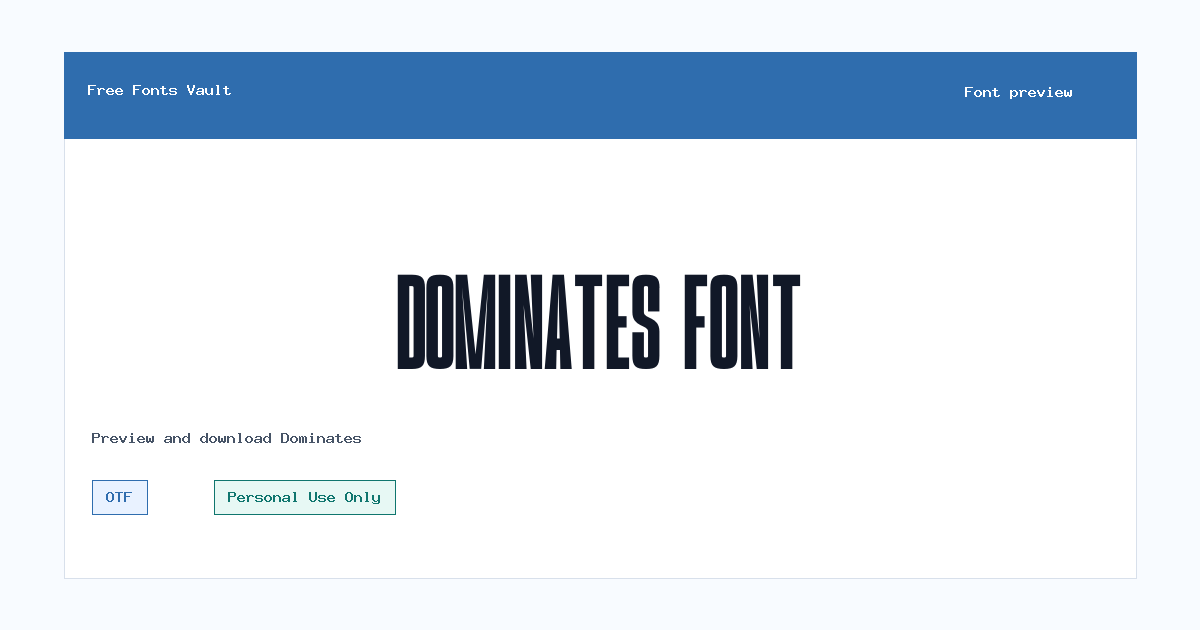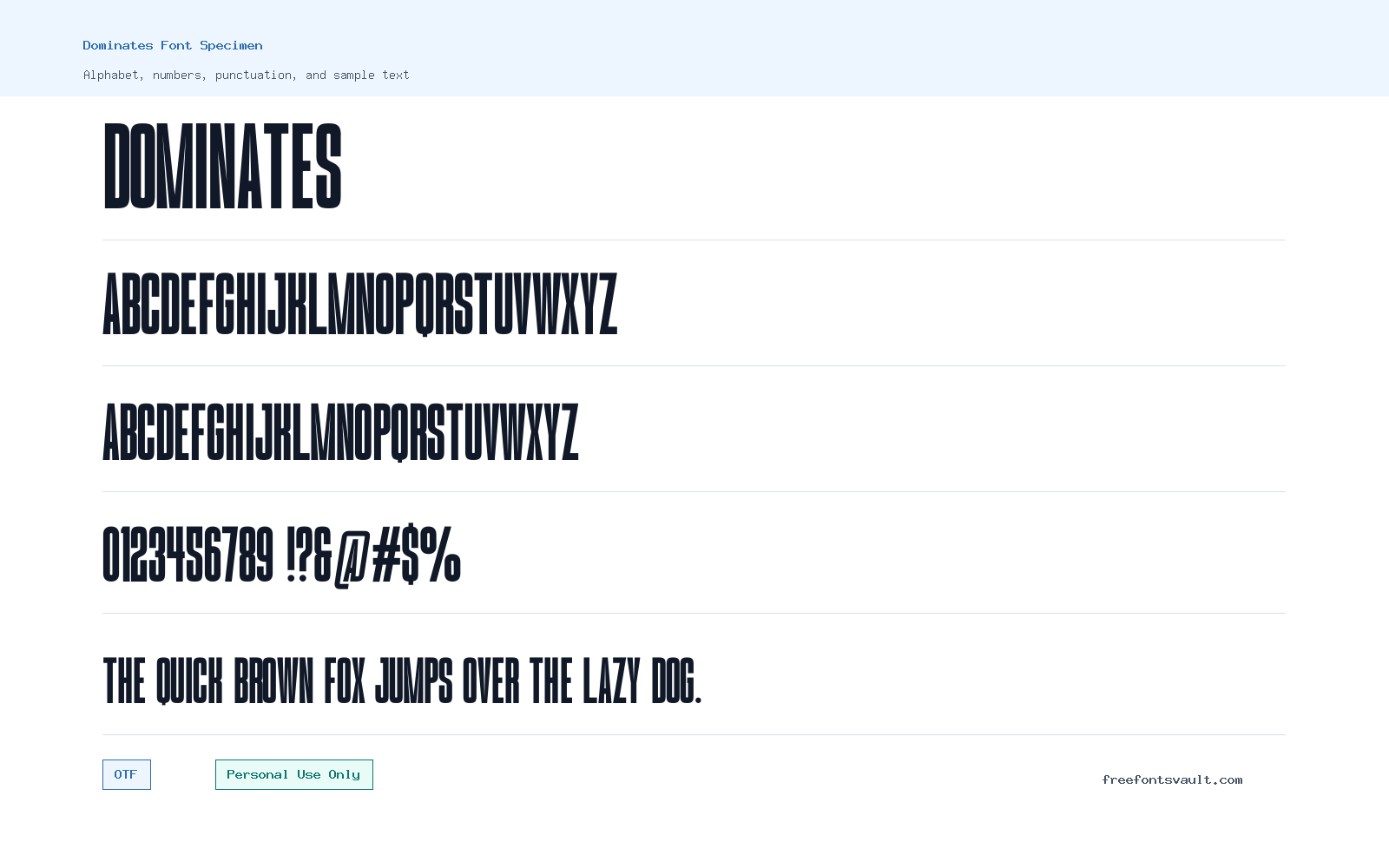
Dominates
Dominates is a bold display font family by Nurinto from Funtype Co. It is best approached as a strong headline and branding-style typeface rather than a long-reading text font.
About Dominates Font
Dominates has the kind of name that points toward confident visual use, and that is the safest way to work with it: short words, large sizes, and layouts where the type can take the lead. The font is available as a regular OTF file with normal style and 400 weight, so it should be easy to test in common design apps that support OpenType fonts. Because there is one listed style, it is worth planning your design around the regular cut instead of expecting a full family with matching bold, italic, or light options.
Use Dominates when you need a display face for logos, poster titles, social graphics, packaging mockups, thumbnails, gaming-style text, or strong web hero headings. It can also work well in font previews where visitors want to compare uppercase, lowercase, numbers, punctuation, and short brand names before downloading. For body copy, captions, menus, or long paragraphs, pair it with a calmer sans serif or serif that keeps the layout readable. A practical approach is to let Dominates handle the main title, then use a neutral font for supporting text, pricing, dates, descriptions, and buttons.
• Display-focused style suited to short, prominent text rather than long reading.
• Works best at larger sizes where the letter shapes can be seen clearly.
• Useful for testing logos, poster headings, social posts, web mockups, and title graphics.
• Logo concepts and wordmark mockups
• Poster titles and event graphics
• Website hero headings and landing page mockups
• Social media quote cards, thumbnails, and cover images
• Packaging concepts, labels, and branding presentations
• Short display text in personal design projects
Before using Dominates in a finished design, type your actual words into the preview and check spacing, punctuation, numbers, and readability at the size you plan to use. For logo work, test both short and long names; display fonts can look strong in a few letters but feel crowded in longer phrases. For posters and web mockups, give the headline enough room and avoid pairing it with another highly decorative font. A simple sans serif for body text will usually make the design easier to read. If you plan to share, sell, print, publish, or use the design for a brand, confirm the commercial licensing terms first.
What is Dominates best used for?
It is best used for short display text such as logos, poster titles, social graphics, packaging mockups, and web hero headings.
Can I use Dominates for body text?
It is not the best choice for long paragraphs. Use it for headlines and pair it with a simpler reading font for body copy.